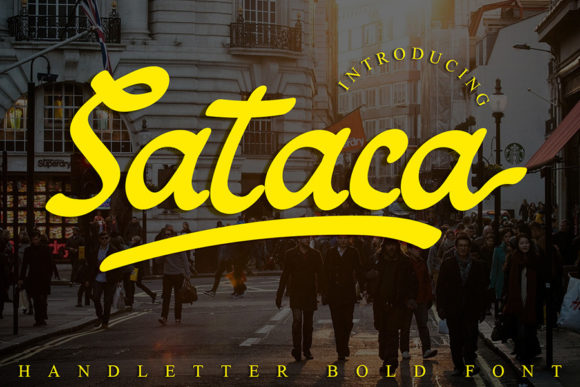
Your search for the perfect font ends here! Introducing Sataca Font, a captivating script font designed by the renowned Mr. Soon Design. With its graceful curves and impeccable precision, Sataca epitomizes the essence of sophistication and finesse.
As its name suggests, Sataca Signature Script is the ultimate weapon for creating unforgettable logos that stand out from the crowd. Whether you're designing for a high-end brand or your personal business, Sataca's unique style will undoubtedly make a lasting impression.
But Sataca's versatility doesn't stop there. Its elegant script flows effortlessly across wedding invitations, adding a touch of timeless beauty to your special day. Create social media content that captures attention and captivates hearts with Sataca's charming personality.
Its stylish alternates and ligatures offer endless possibilities for customization, allowing you to create truly unique and eye-catching designs. The possibilities are limitless, and your imagination is the only boundary.
So why settle for ordinary when you can have extraordinary? Embrace the allure of Sataca Signature Script and watch your creations transform into masterpieces. Its captivating beauty will ignite your creativity and leave an indelible mark on everything you design. Experience the Sataca difference today and elevate your design game to new heights.